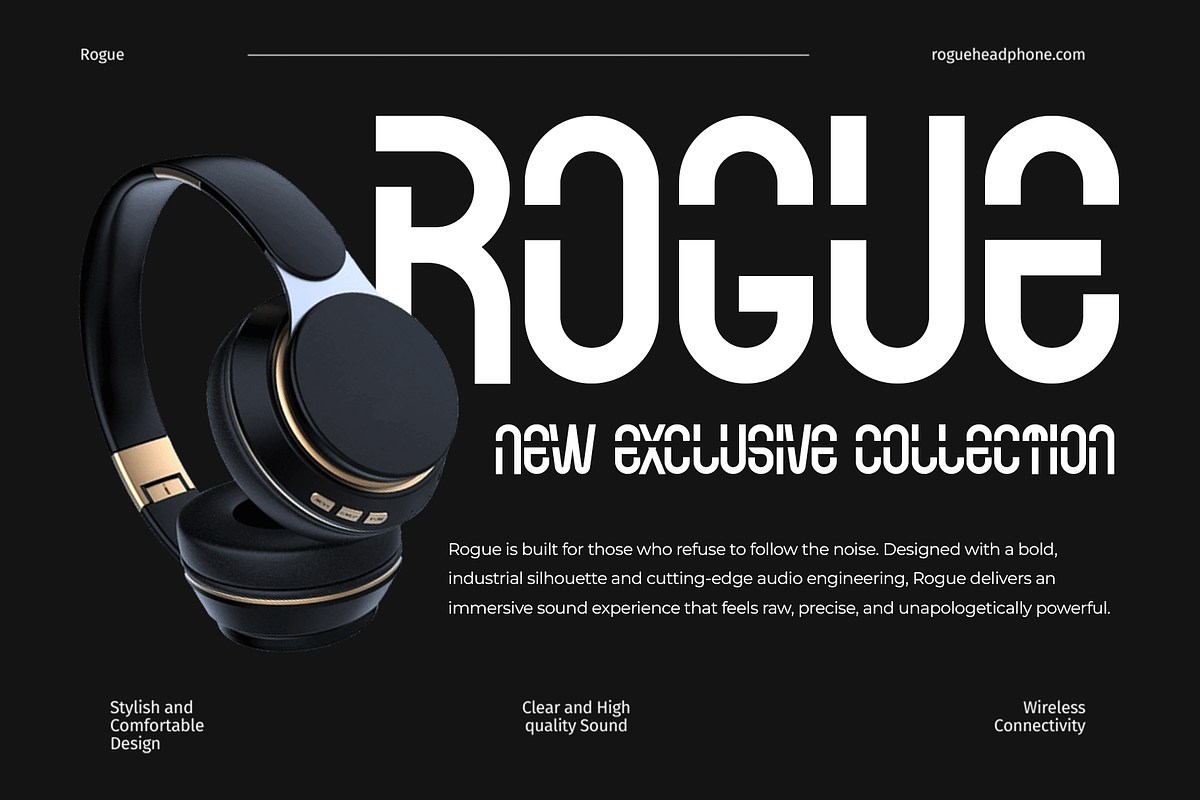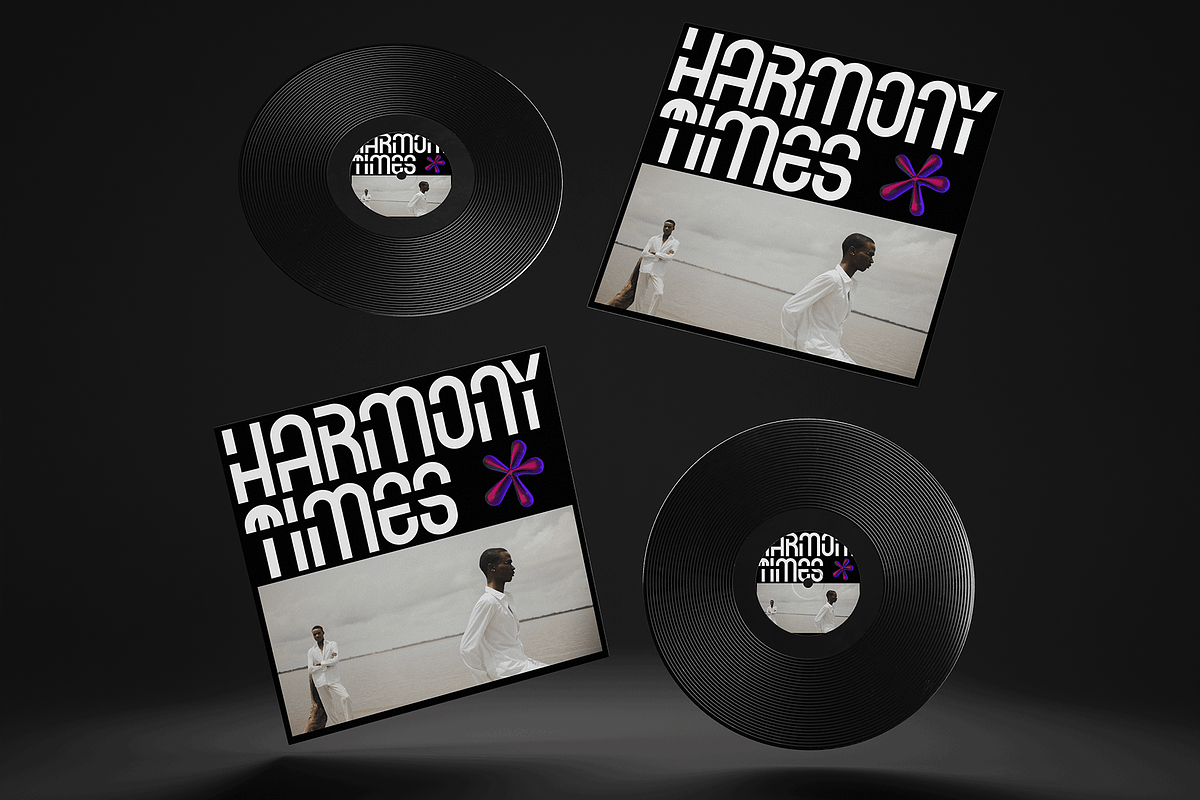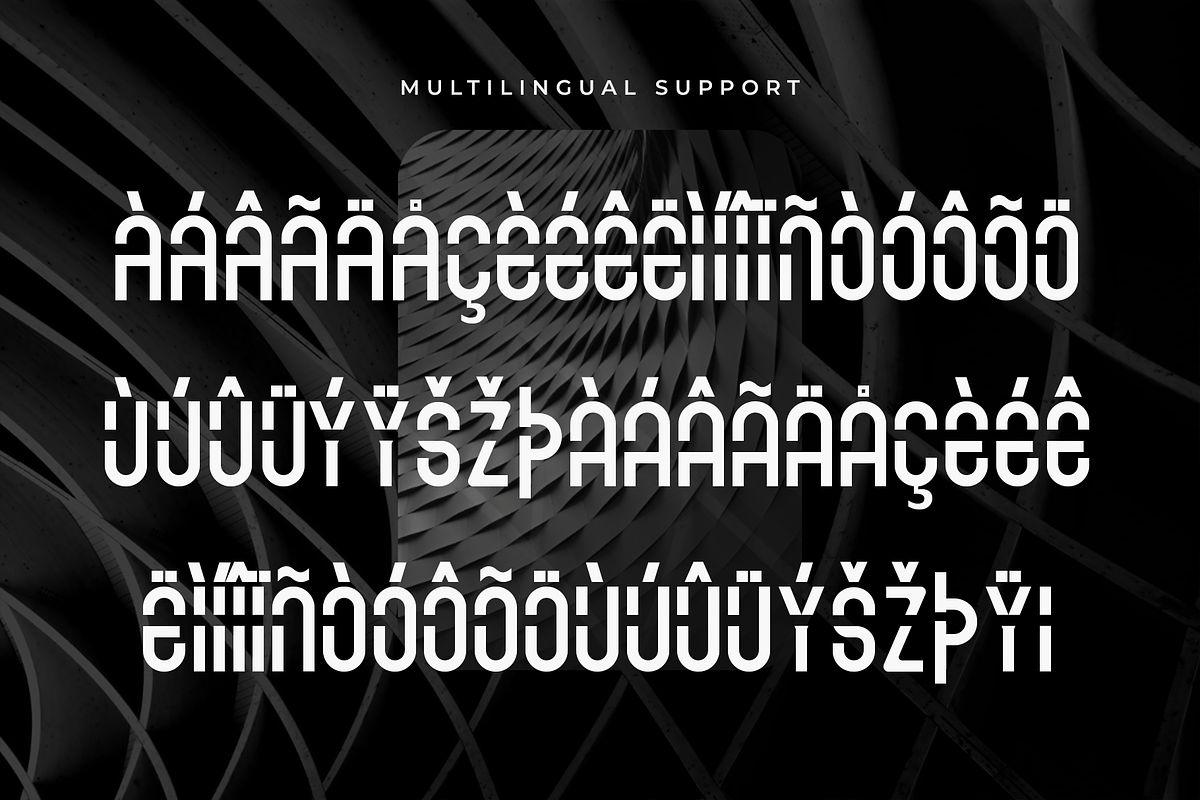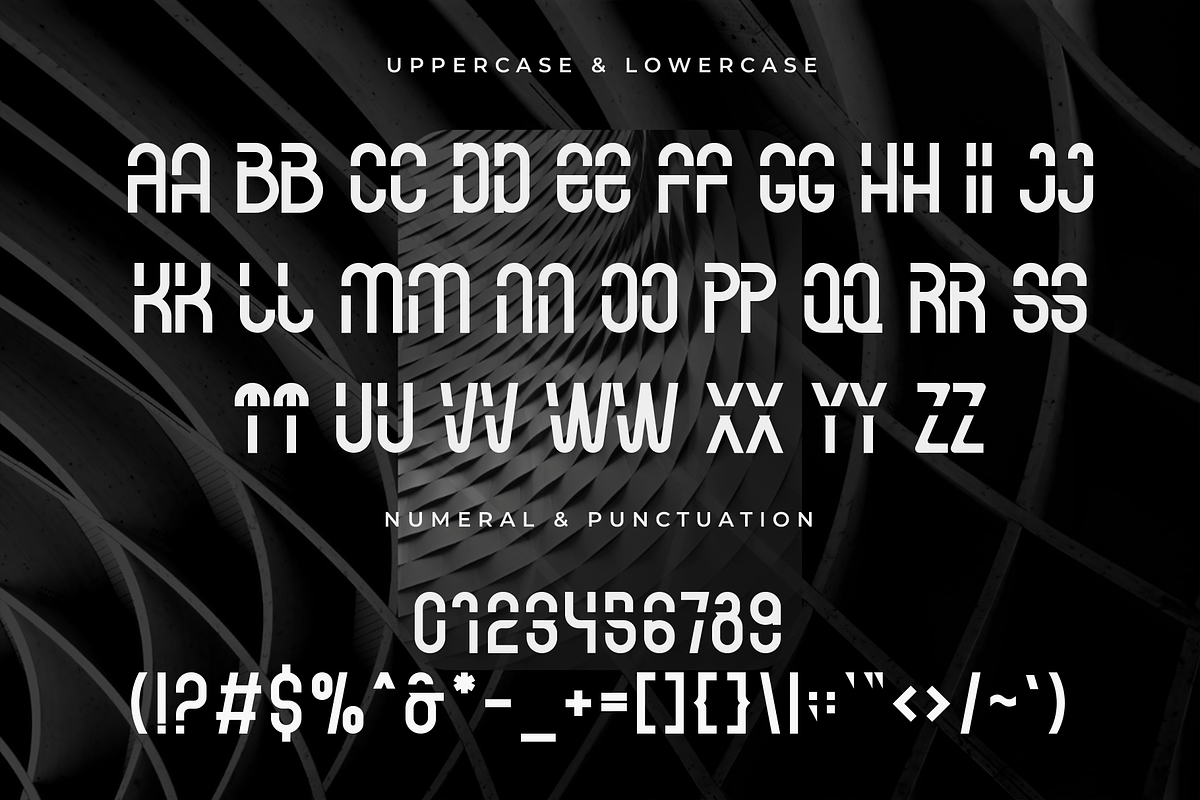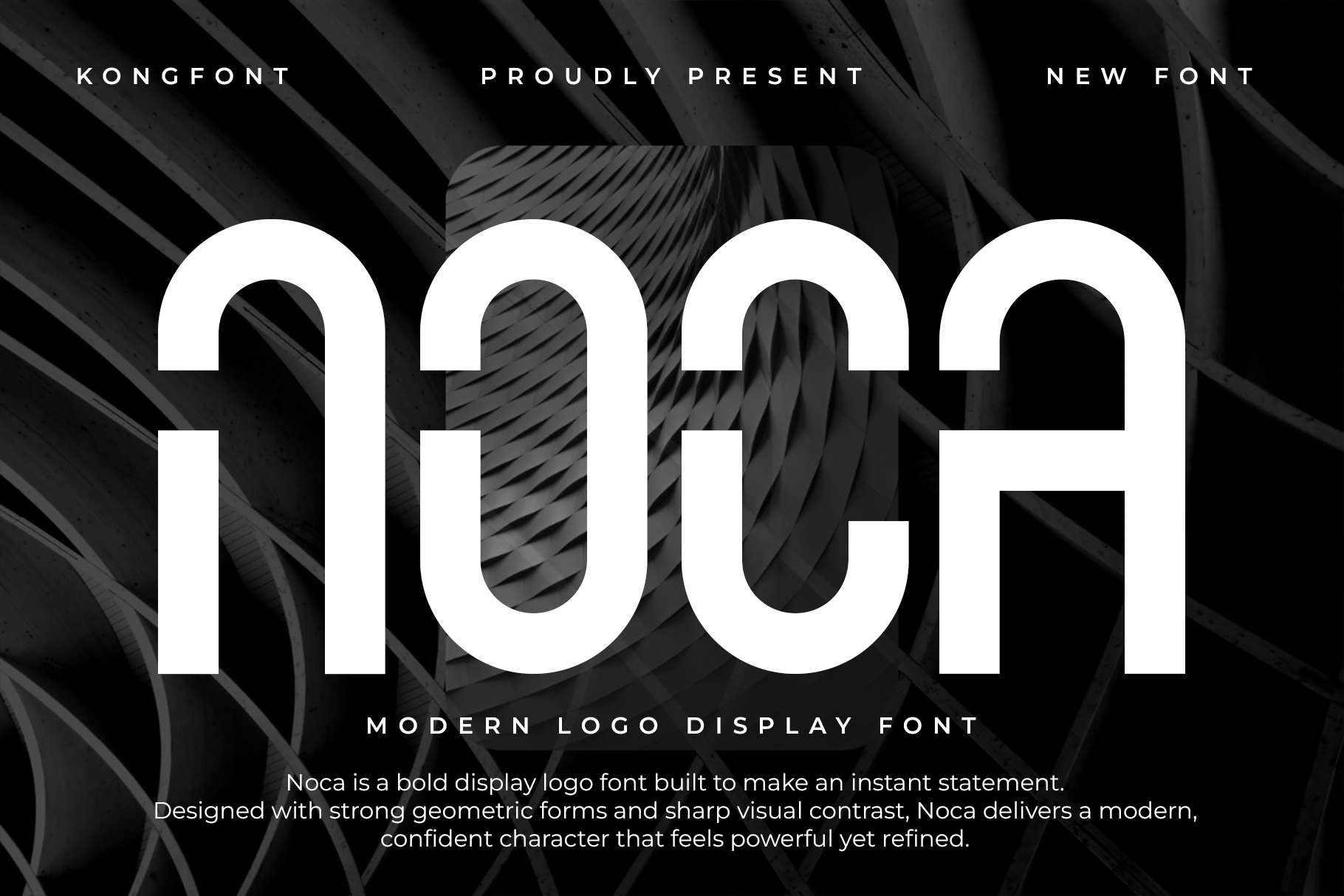
Noca - Modern Logo Display Font
Introducing Noca, a modern logo display font designed to create strong, memorable brand identities. With its clean construction, confident curves, and modern proportions, Noca delivers a minimalist yet distinctive look that works perfectly for logos and brand-focused typography.
Noca includes uppercase and lowercase letters, numerals, punctuation, and multilingual support, giving designers the flexibility needed for professional branding projects worldwide. Whether you’re creating a new brand mark, refreshing a logo, or designing modern marketing materials, Noca provides a clean foundation with strong visual impact.